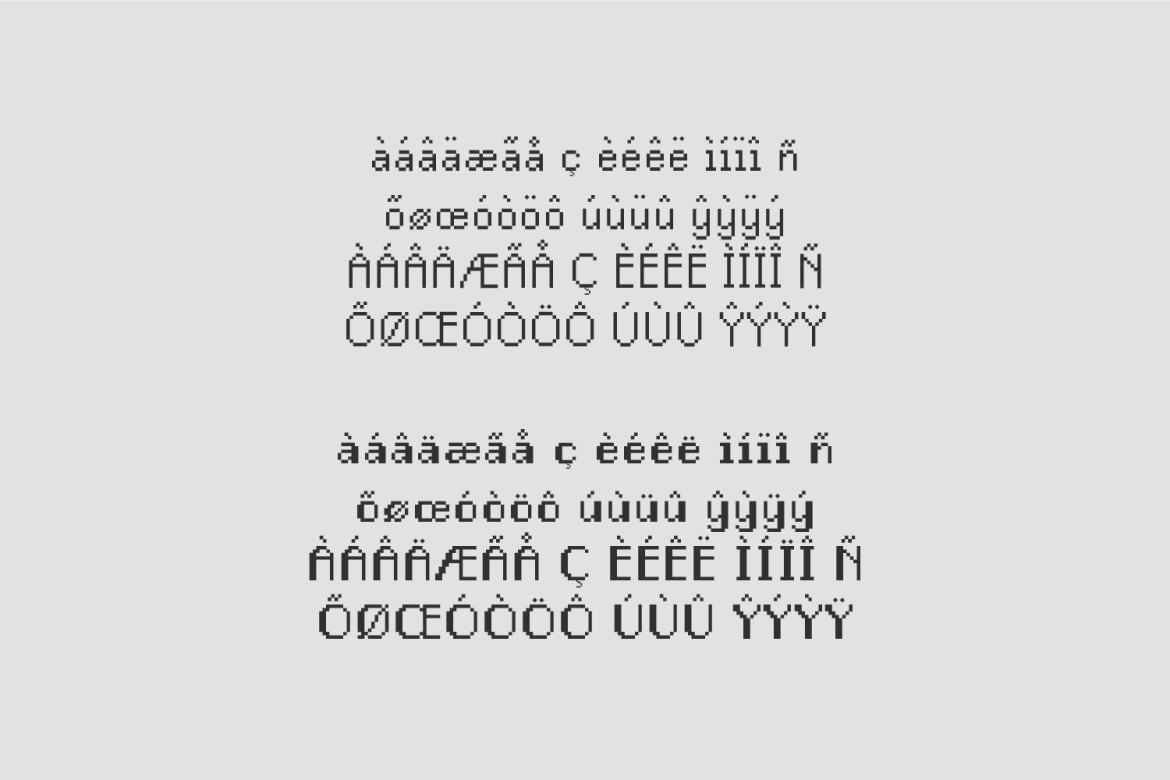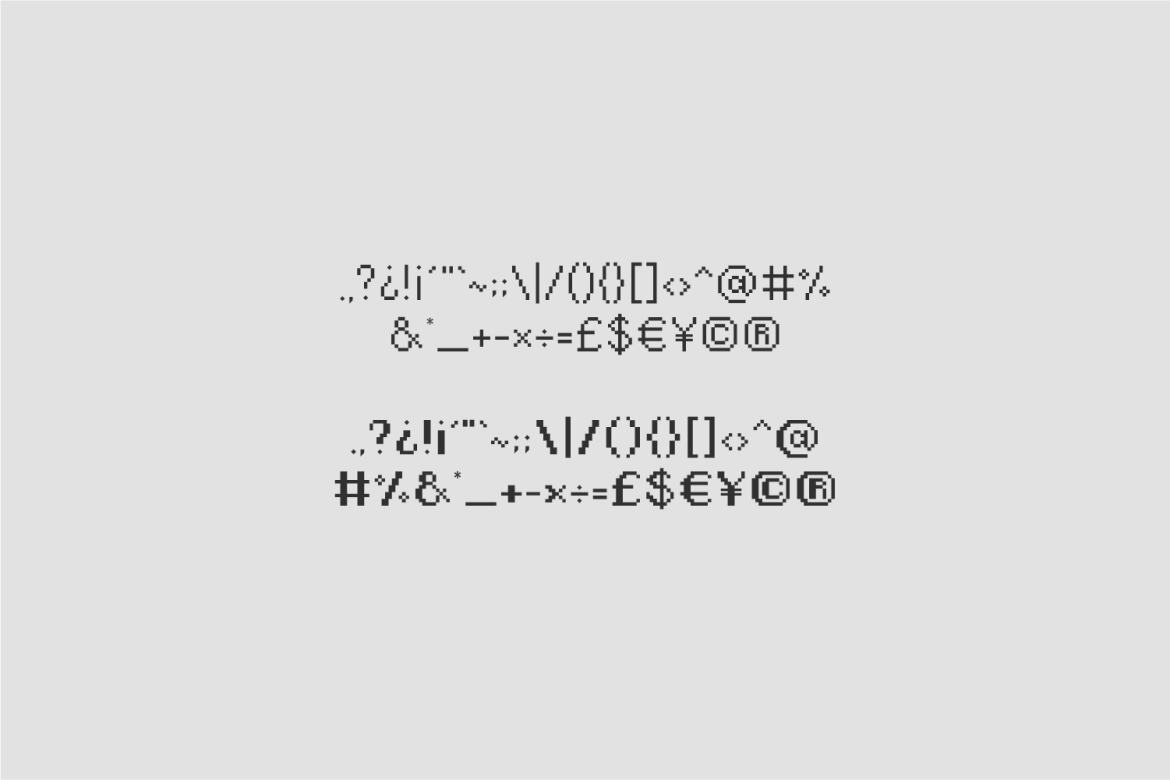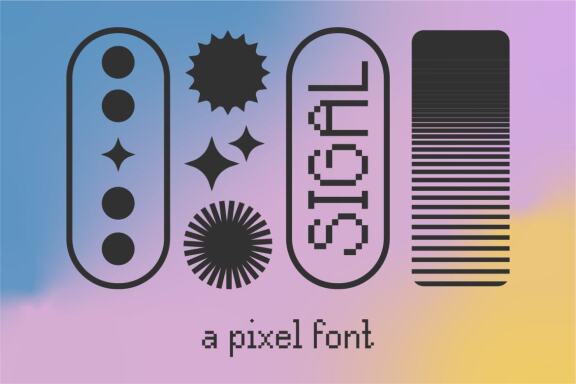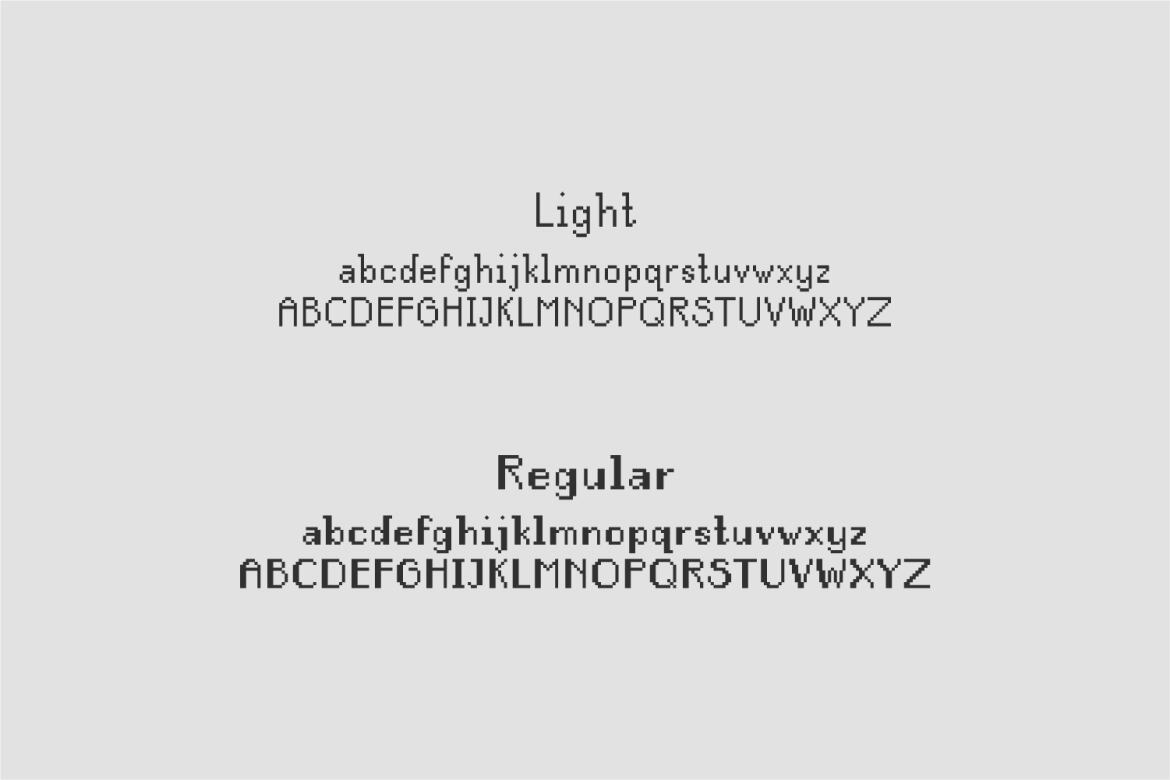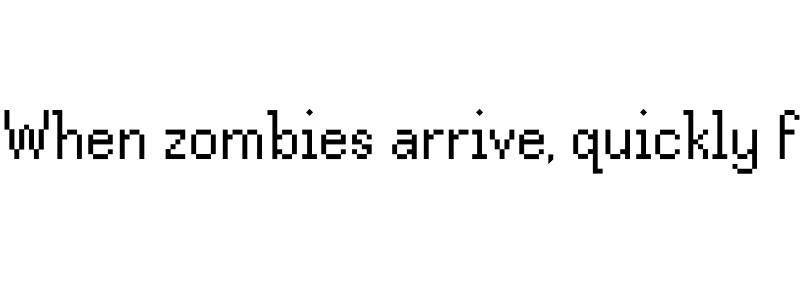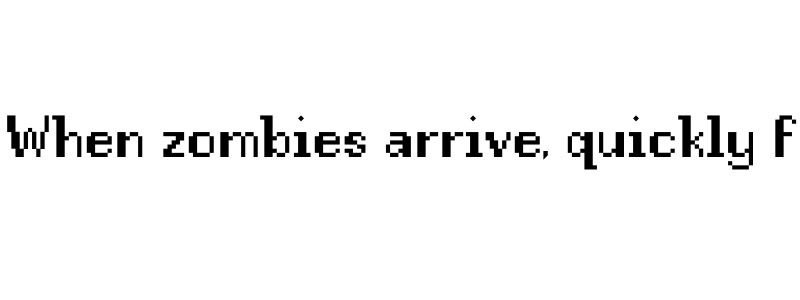
Sigal FREE Pixel Font
Sigal is a pixel font, currently available in two weights; light and regular.
Features include wider character support for a variety of European languages, as well as ligatures!
• a pixel font with a more elegant feel
• multiple weights